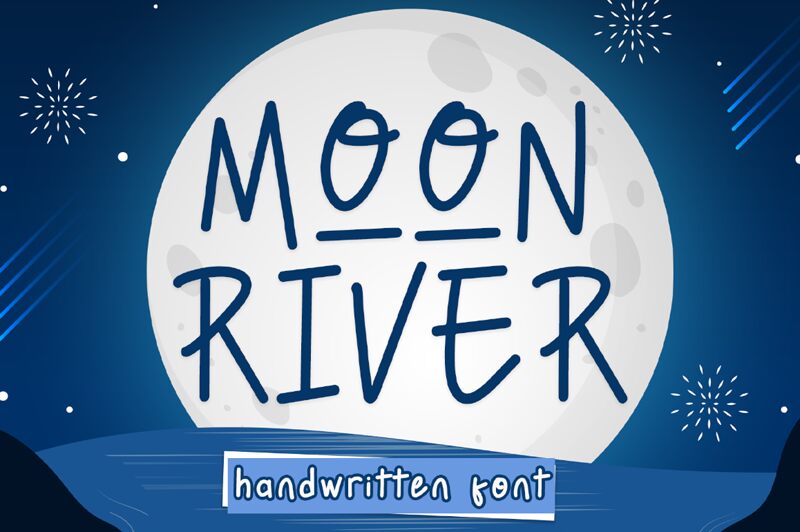
Moon River is a cute handwritten font designed by Muhammad Hisyam Rivai. Its light weight and whimsical style make it perfect for crafting projects, creative designs and adding a touch of personality to logos, invitations, and more.